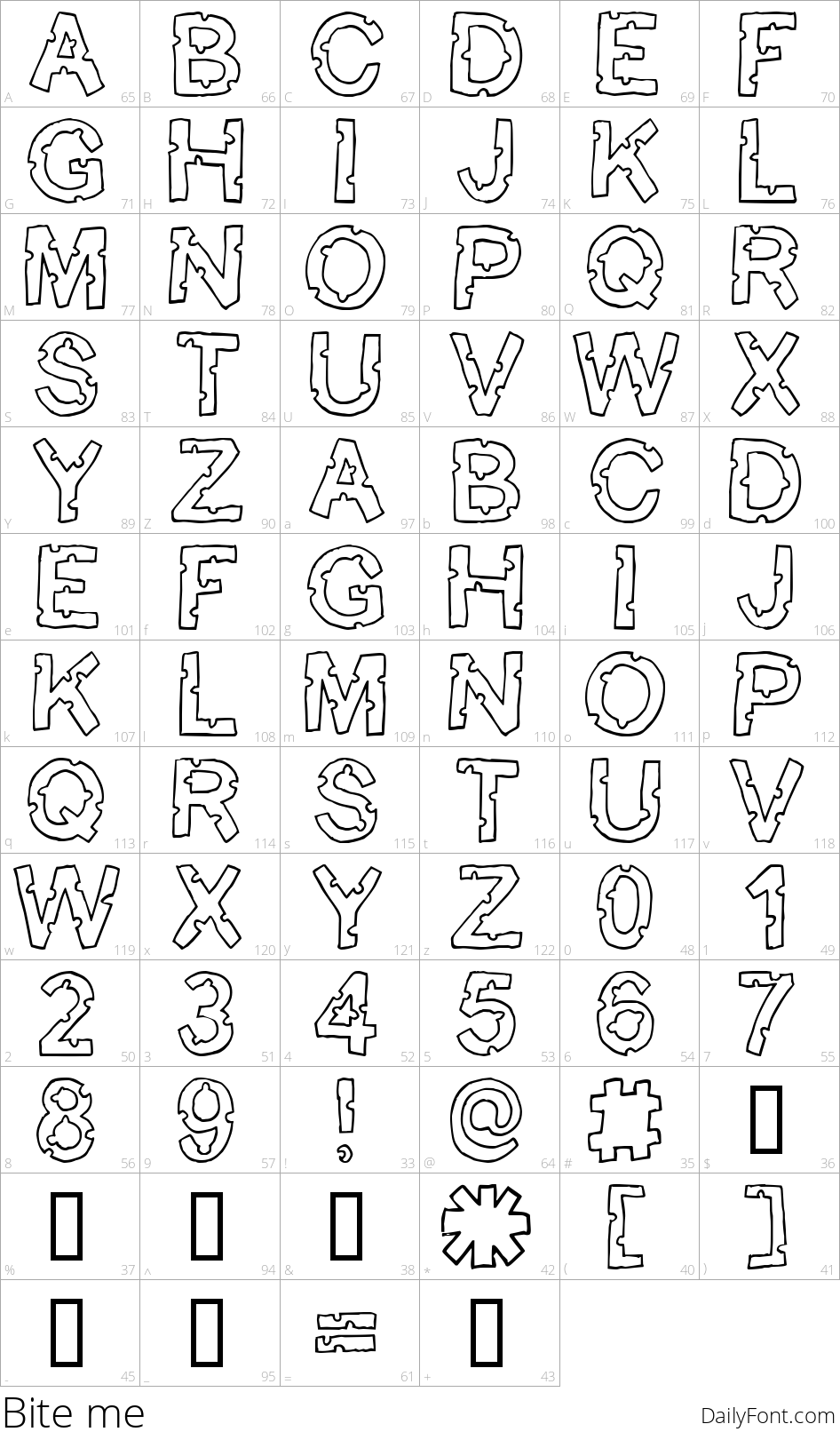
Bite me
Hollow outline caps with jagged puzzle-piece notches
Bite Me draws its bold, hollow letters with interlocking, puzzle-piece-shaped edges, as if each stroke were a jigsaw piece clicked into place. This free version's symbol keys are mostly left out, so plan layouts around letters and numbers.
Use it for puzzle and board game branding, playful poster titling, kids' activity graphics, and any design that wants a fun, interlocking outline look. Free to download for personal use.